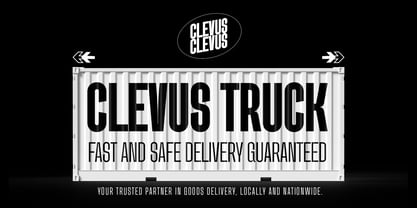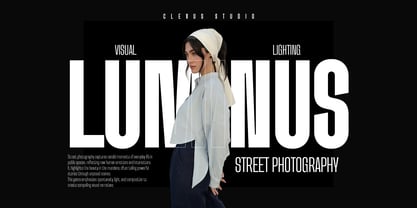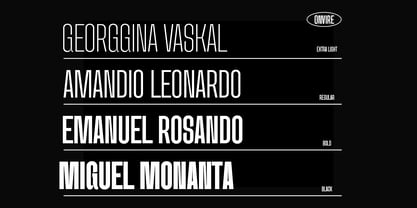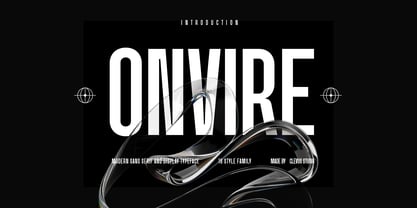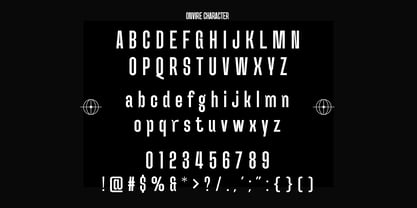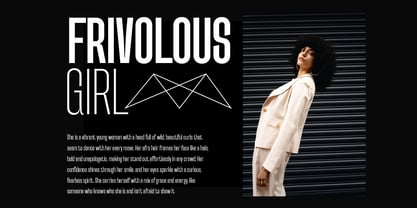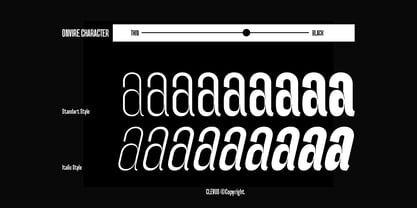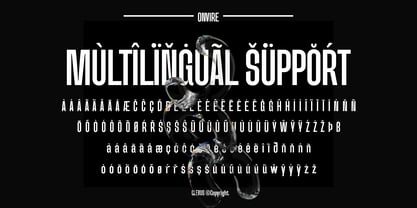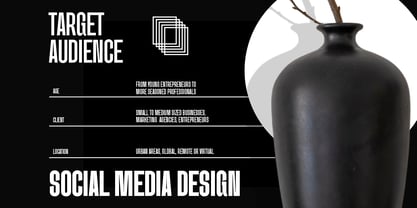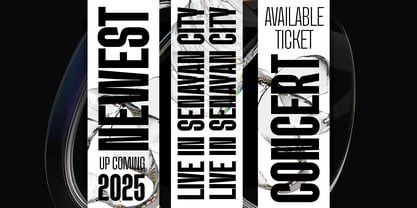
Onvire
Die Schriftfamilie Onvire wurde von Alfinu Zafir entworfen und von Clevus veröffentlicht. Onvire enthält 18 Stile und Familienpaketoptionen.
Proudly present Onvire Family Condensed Font, is a modern and bold condensed font inspired by classic grotesque typefaces with 18 weights.
Onvire equipped with several OpenType. Have 18 weight and 20 unique alternates ligatures. Comes with alternatives and ligatures, and helps to create stunning logos, quotes, posts, blog posts, branding projects, magazine imagery, wedding invitations, poster and much more.
- 18 Weights
- Letters, numbers, symbols, and punctuation
- 20 alternates and ligatures
- Multilingual Support
Onvire delivers a powerful impact with a sleek, contemporary style.